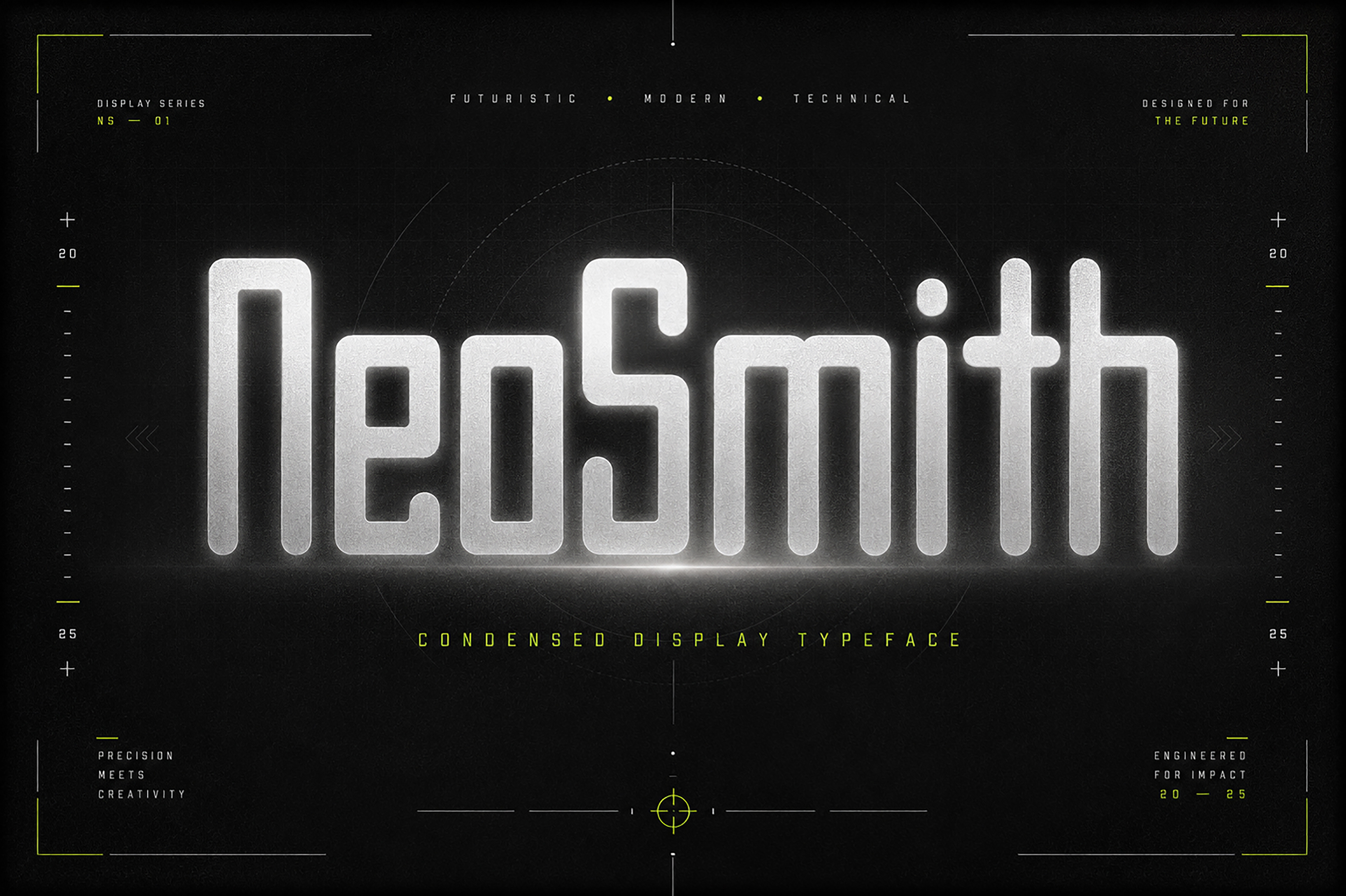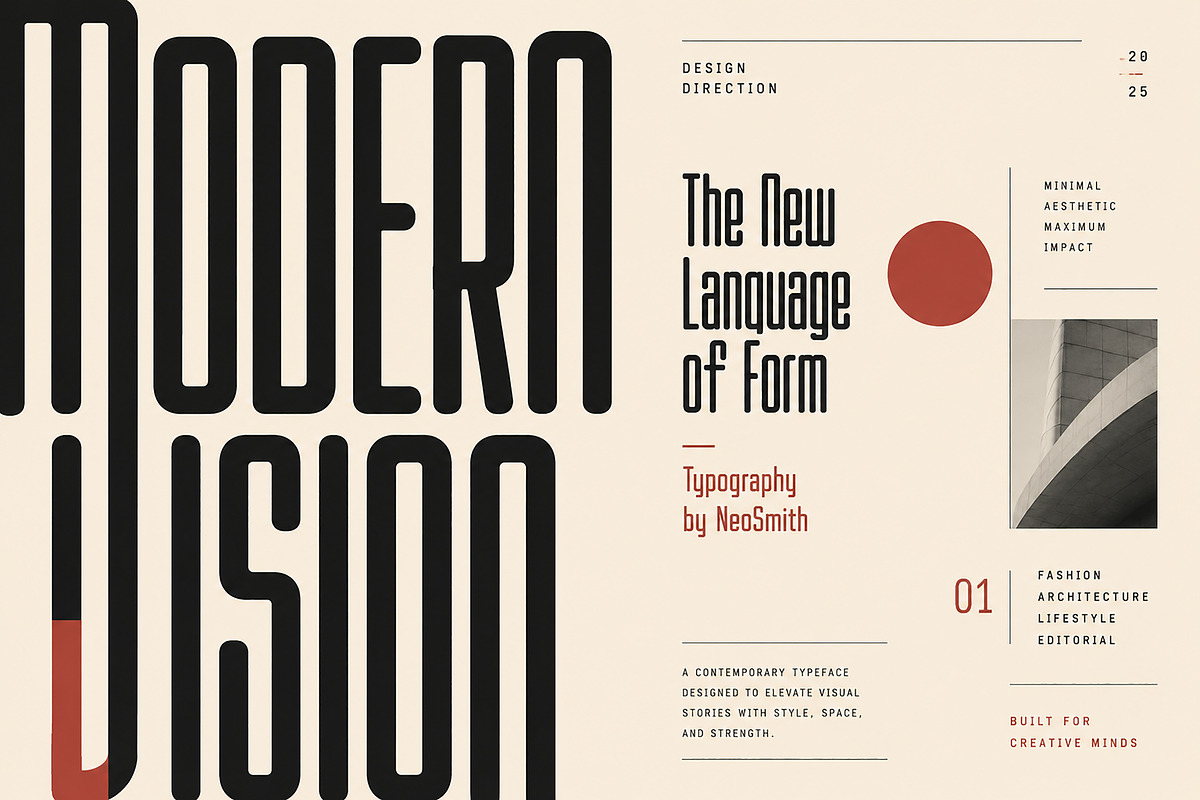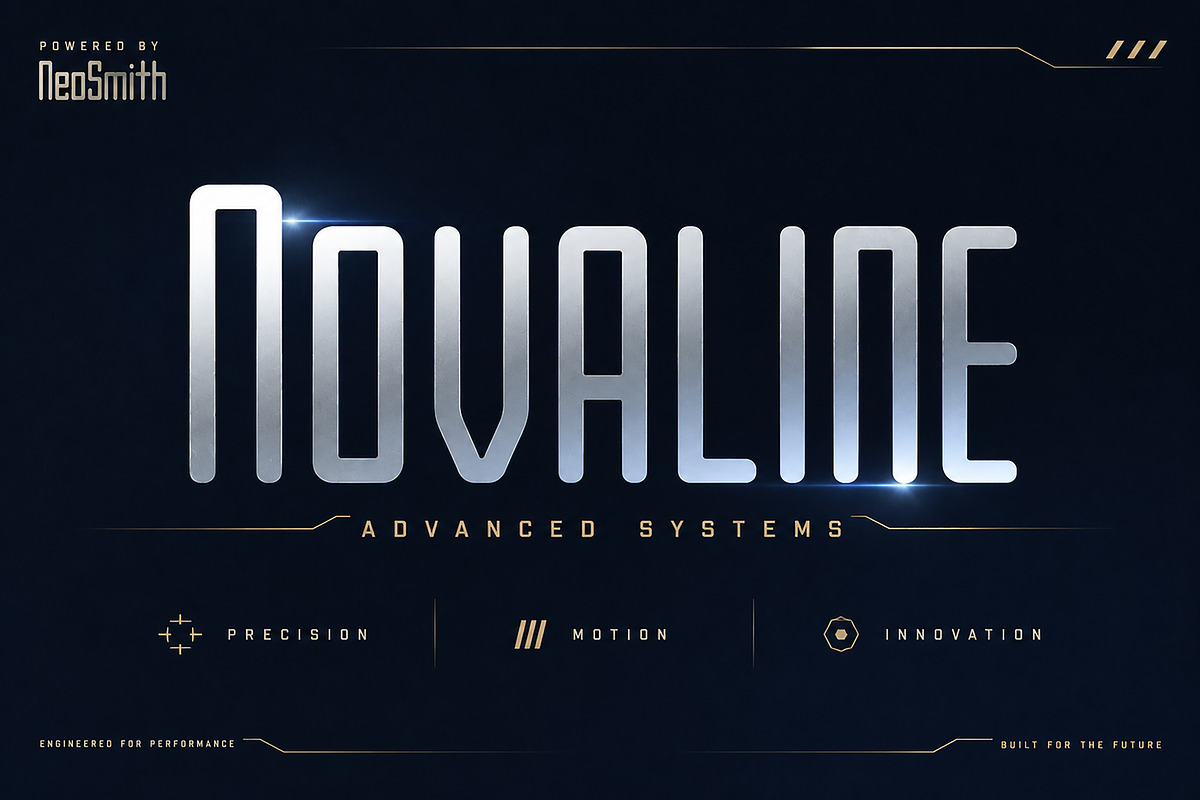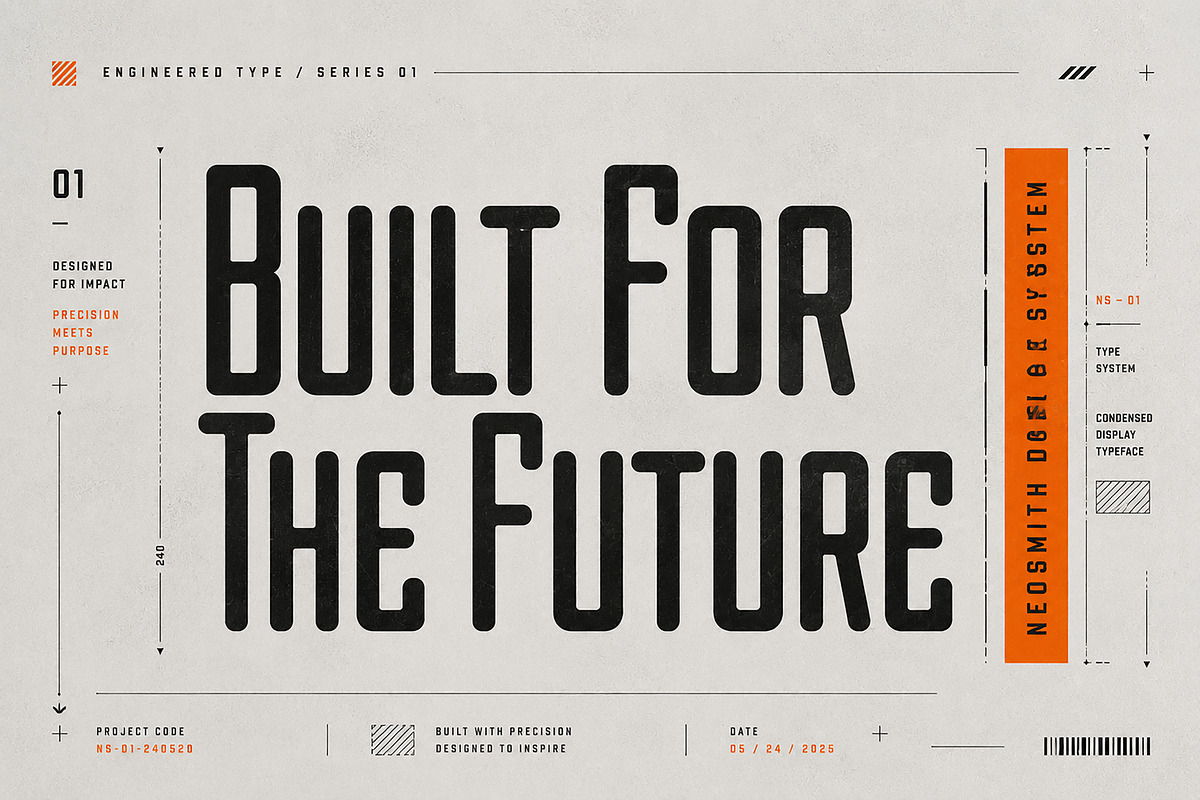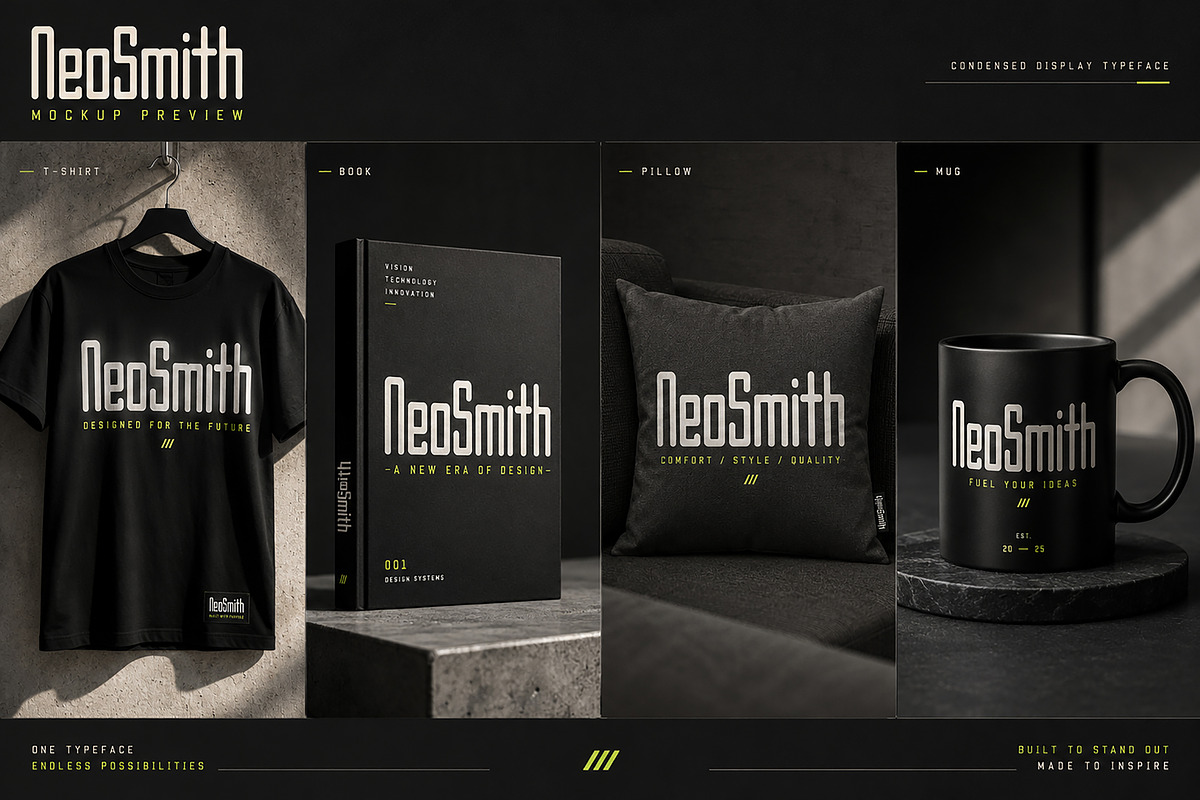
NeoSmith –Condensed Display Typeface
NeoSmith – Futuristic Condensed Display Typeface
NeoSmith is a bold, modern condensed display typeface crafted for designers who want a clean, futuristic, and high-impact visual identity. Its tall geometric structure, rounded corners, and minimalist industrial style make it an excellent choice for technology branding, automotive designs, gaming graphics, posters, packaging, logos, editorial layouts, and digital interfaces.
Designed with simplicity and precision in mind, NeoSmith delivers a premium contemporary look while maintaining excellent readability at large display sizes. Whether you're creating a futuristic brand identity or a modern advertising campaign, NeoSmith helps your designs stand out with confidence.
Logos & Brand Identity
Technology Branding
Automotive Designs
Posters
Headlines
Editorial Layouts
Gaming Titles
YouTube Thumbnails
UI & Interface Design
Advertising
Apparel Designs
Creative Projects
Modern Futuristic Style
Condensed Display Typeface
Bold Geometric Letterforms
Clean & Minimal Design
Premium Industrial Look